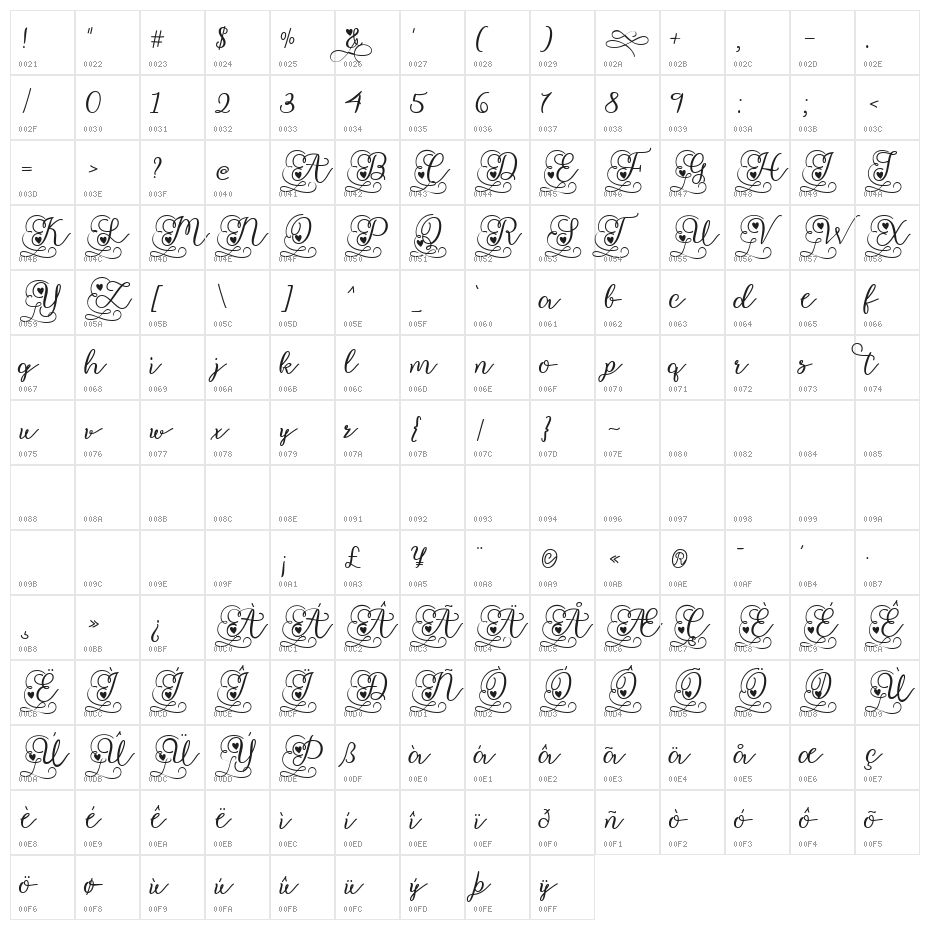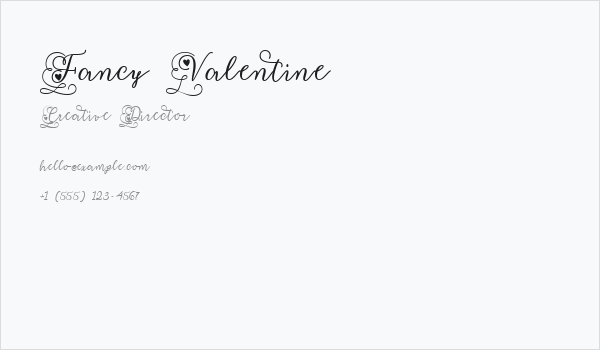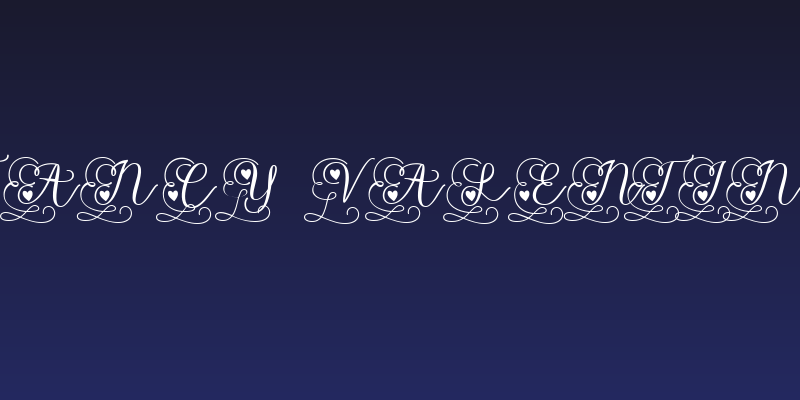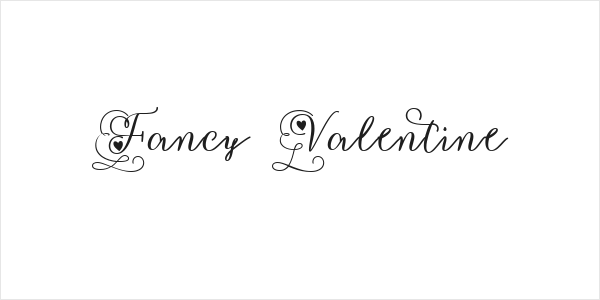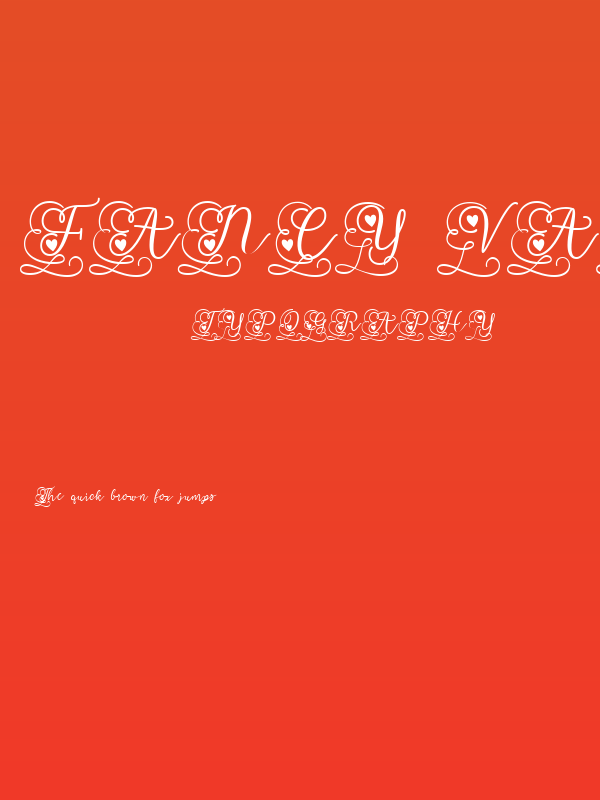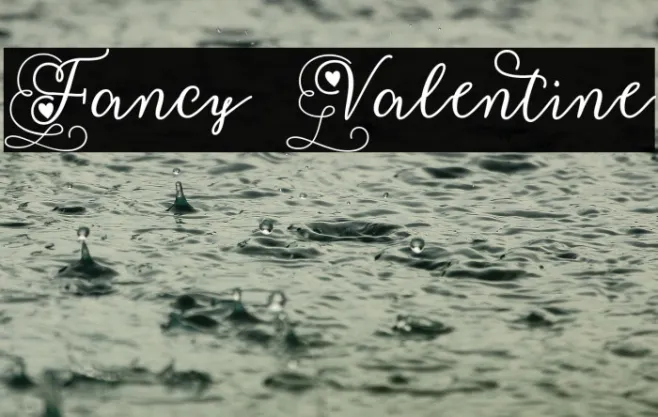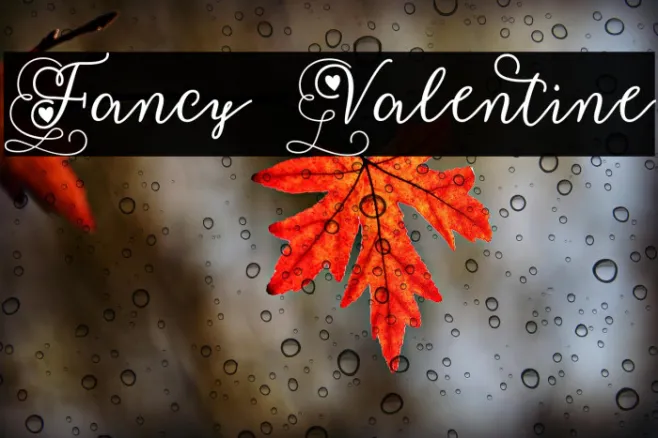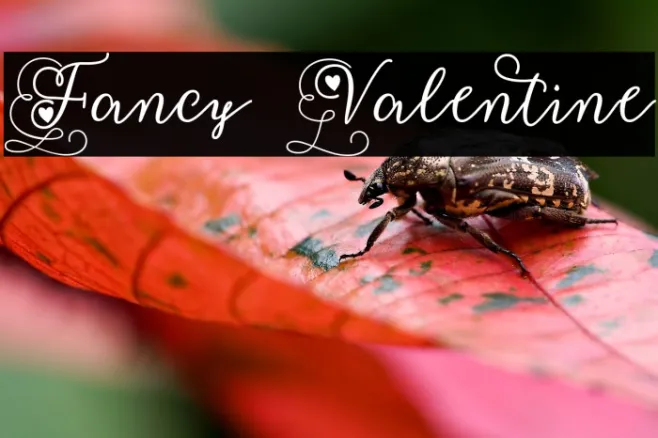
Fancy Valentine Font
Fancy Valentine Description
This elegant script font features intricate swirls and flourishes, giving it a romantic and sophisticated appearance. The uppercase letters are adorned with elaborate loops and decorative elements, making them ideal for formal invitations or elegant branding. The lowercase letters maintain a smooth, flowing style that complements the uppercase, ensuring readability while retaining a sense of grace. The numerals are consistent with the overall style, offering a cohesive look. Special characters include a variety of decorative symbols that enhance the font's versatility for creative projects. The font's overall design is perfect for adding a touch of elegance and romance to any project.
| Overall Style | Romantic, Elegant |
| Use Case | Invitations, Branding, Decorative text |
| Proposed Projects | Wedding invitations, elegant branding, romantic greeting cards, luxury product packaging. |